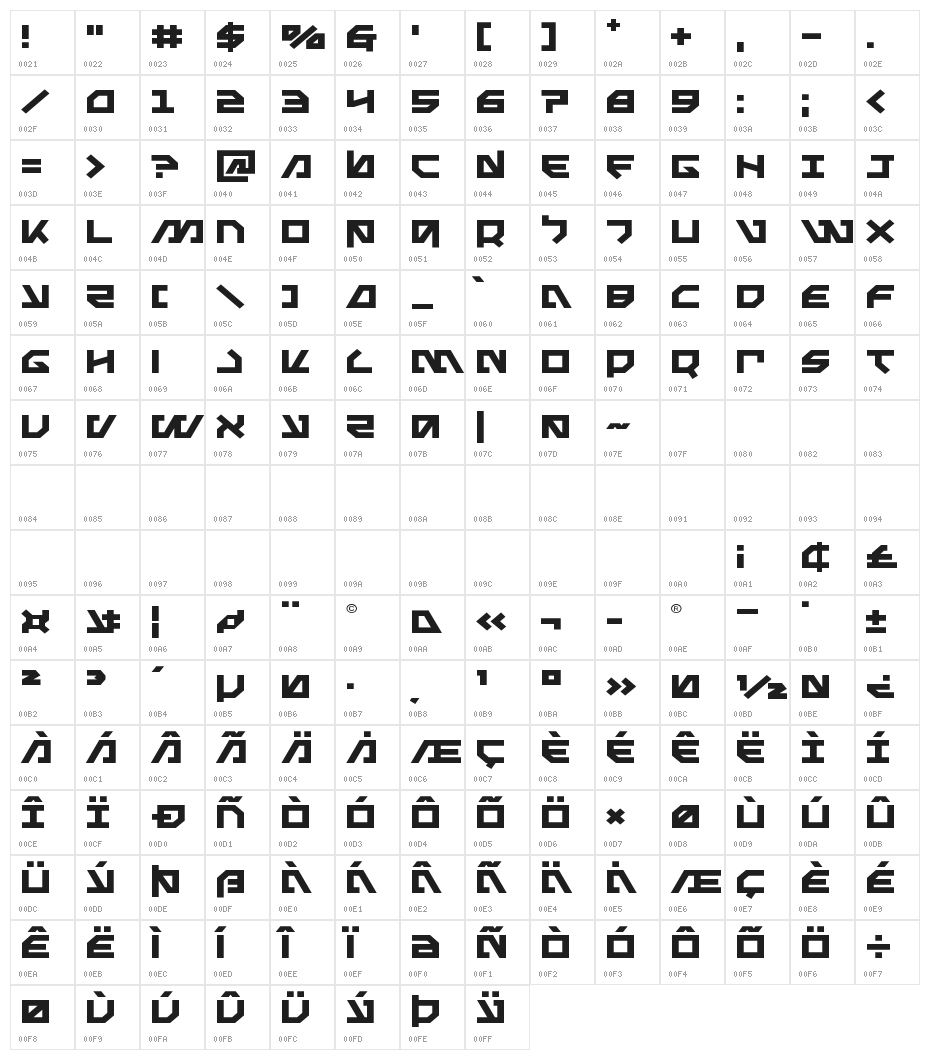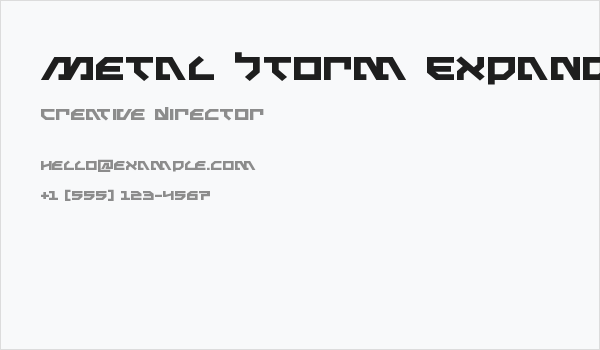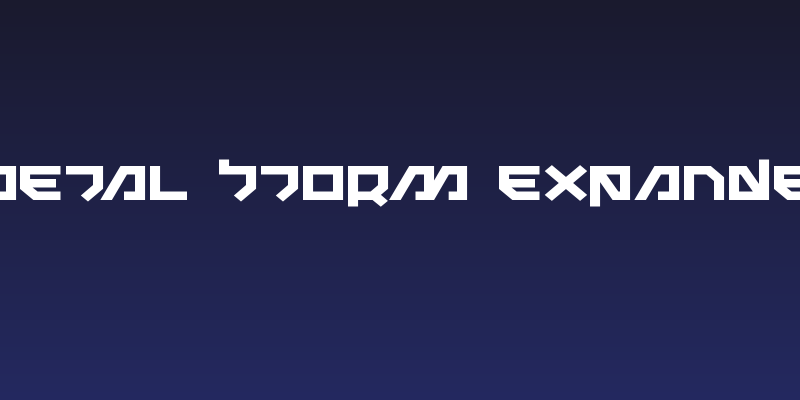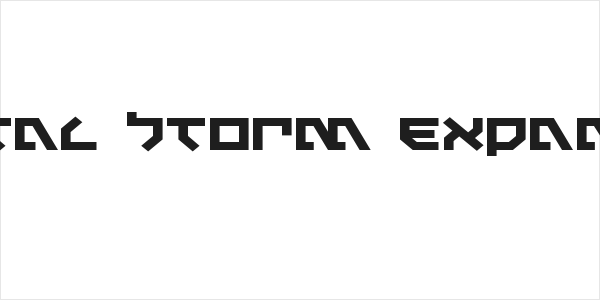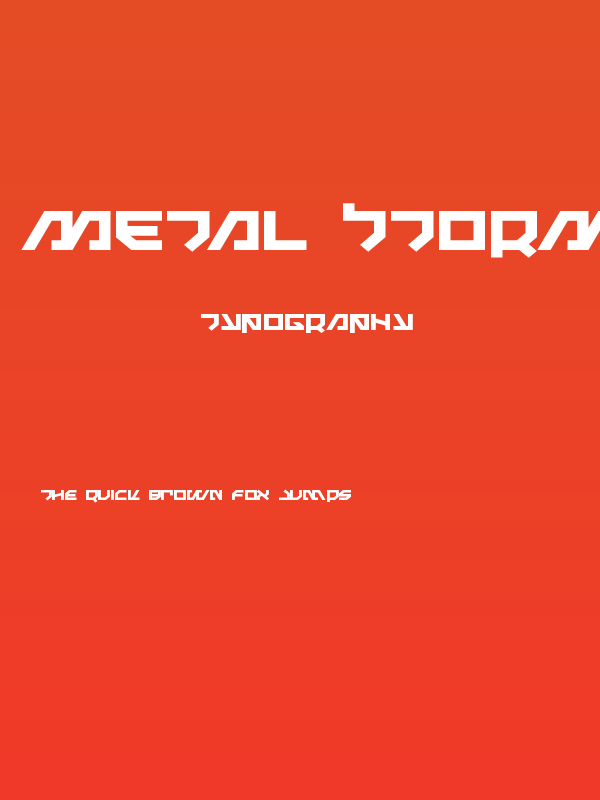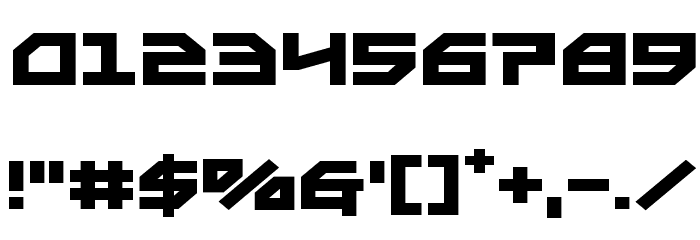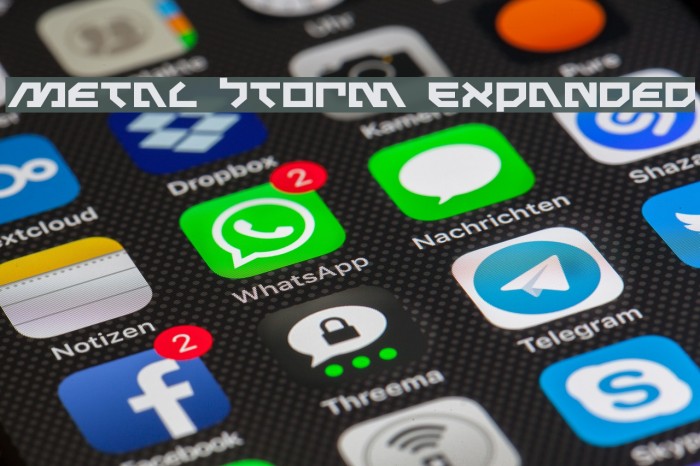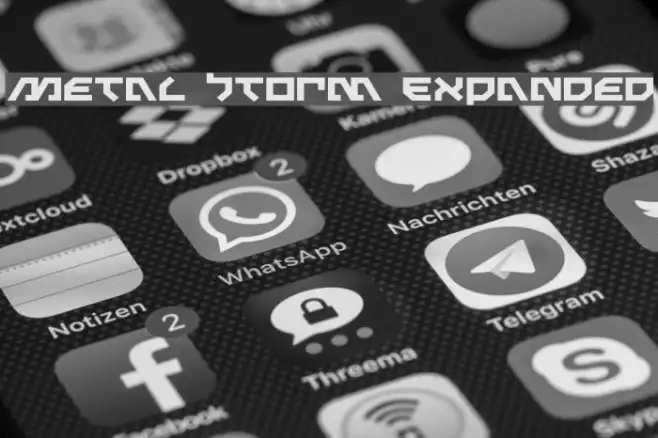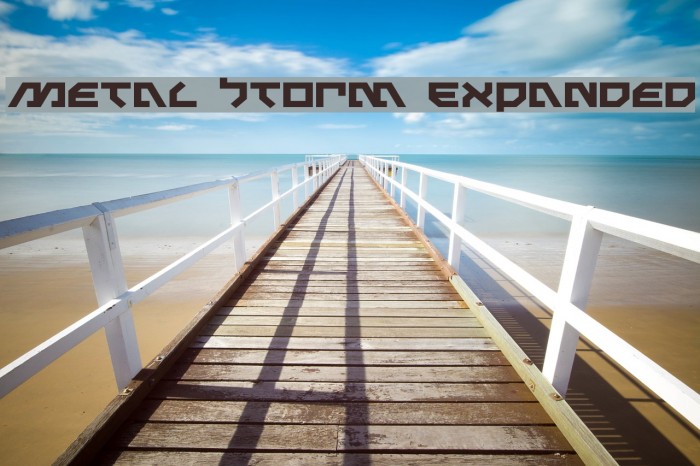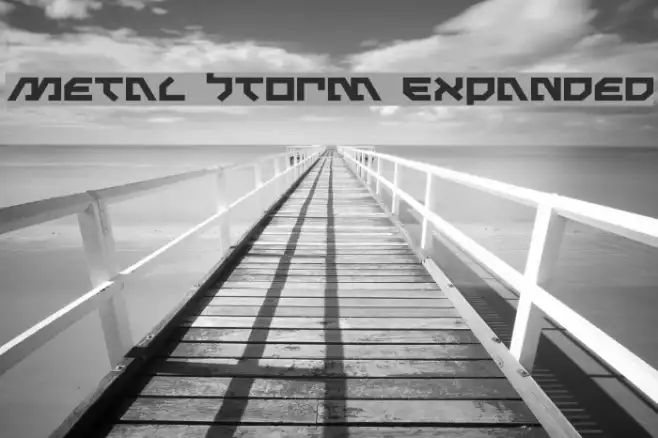
Metal Storm Expanded Font
Metal Storm Expanded Description
This font features a bold and angular design, characterized by sharp edges and geometric shapes. The letters are constructed with a futuristic and industrial aesthetic, making it stand out with its unique and aggressive style. The uppercase and lowercase letters maintain a consistent design, with a strong emphasis on horizontal and vertical lines. Numbers and special characters follow the same angular theme, ensuring uniformity across all glyphs. The font's distinct appearance is ideal for projects that require a modern and edgy look.